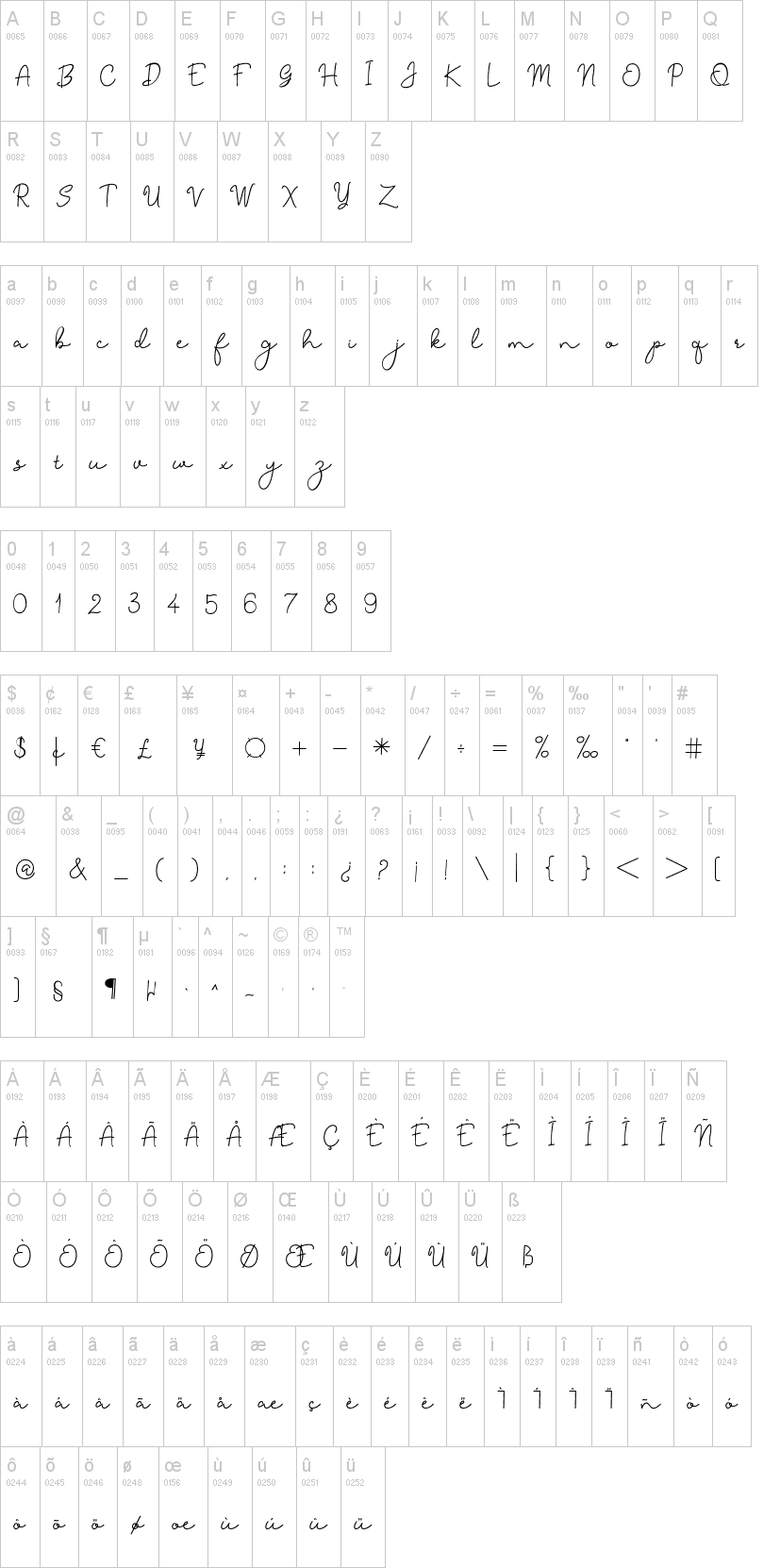
Chilldranety
Note of the authorChilldranety a fonts of Chilldranety stylish calligraphy that have a varied base line, fine lines, classic and elegant touches. Can be used for various purposes. Such as title, signature, logo, wedding invitation, t-shirt, letterhead, nameplate, label, news, poster, badge etc.